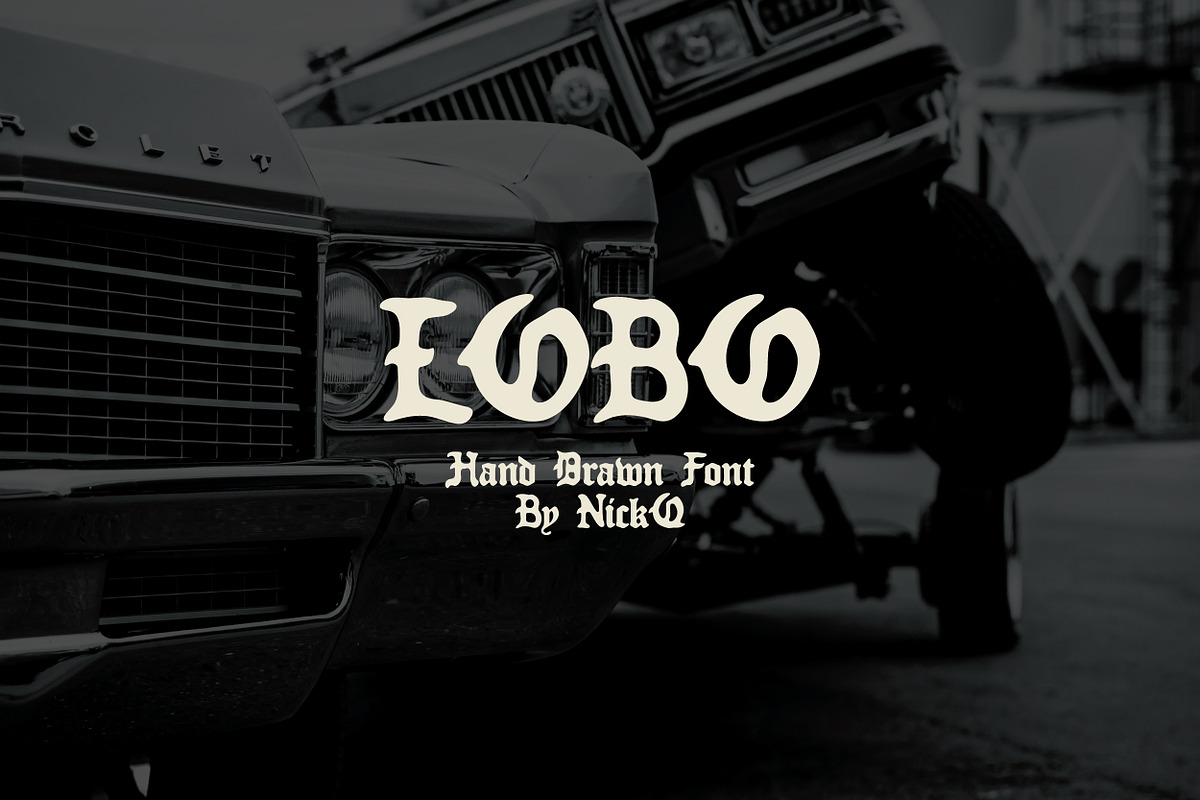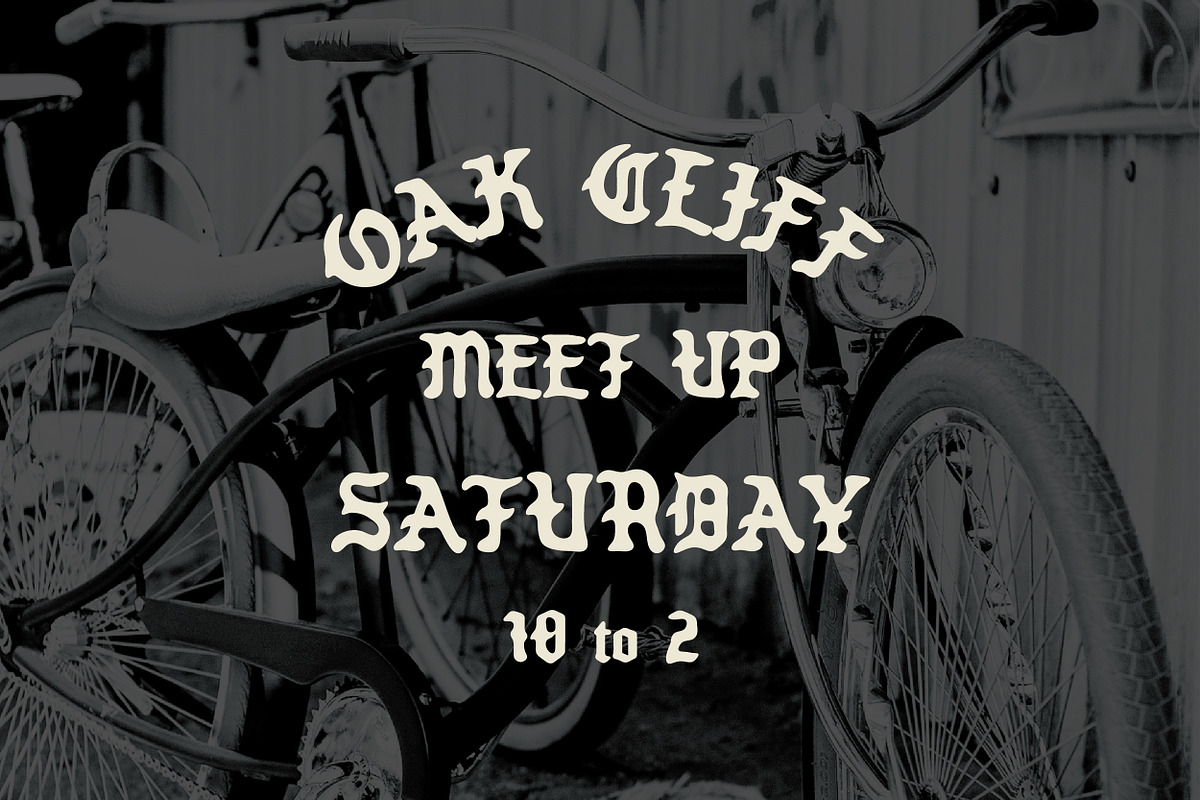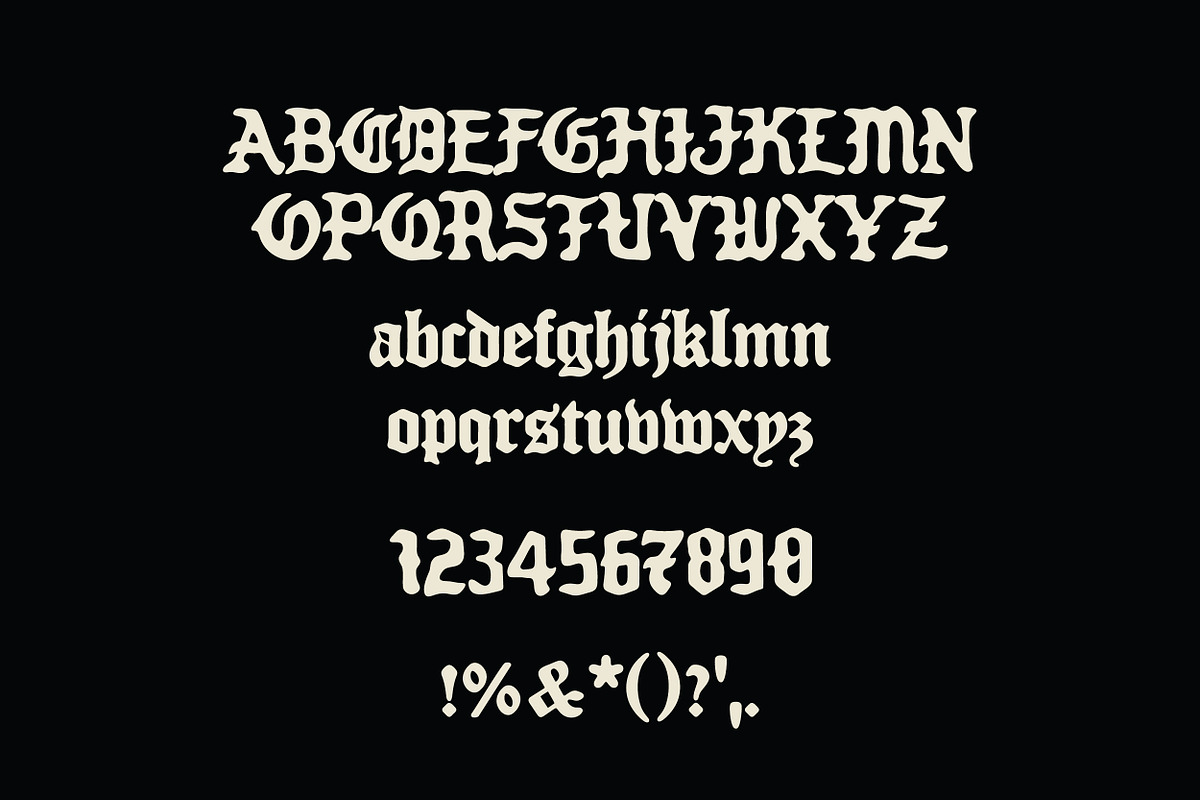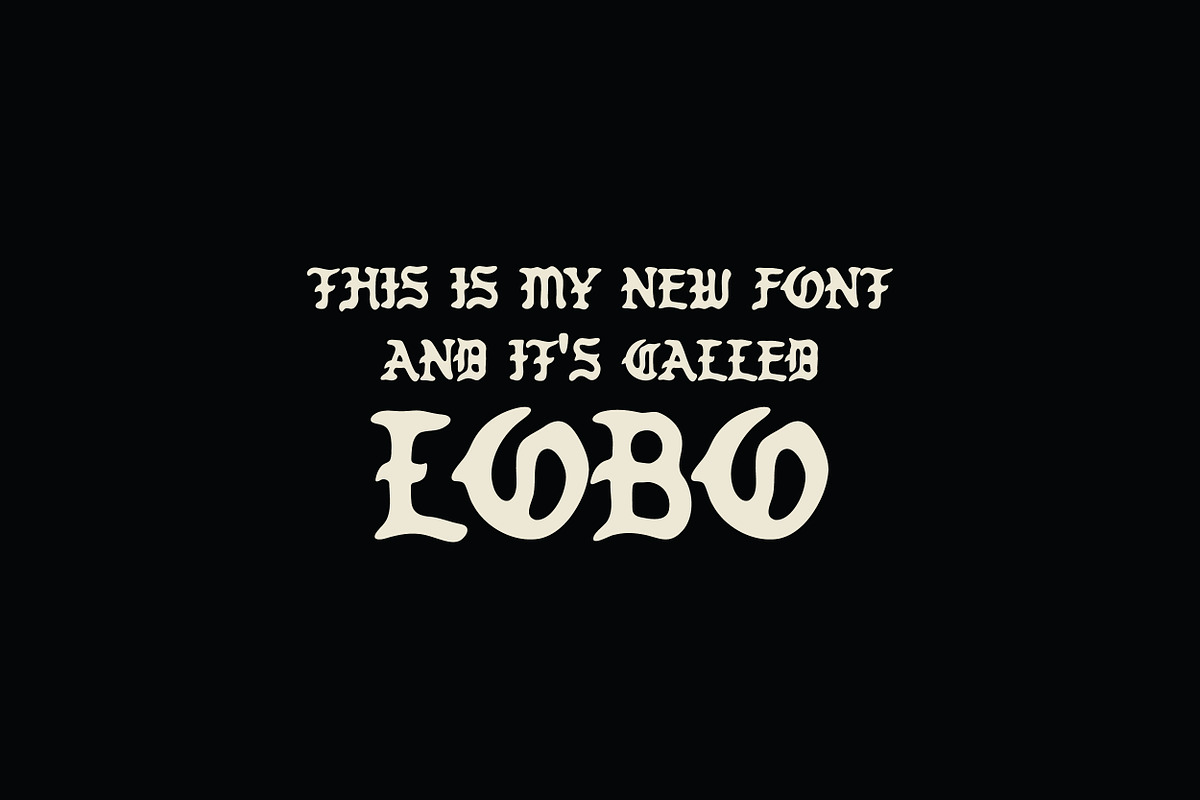
Lobo Hand Drawn Font
This is my newest font inspired by Old English with a little hand drawn roughness. It's perfect for t-shirt designs and logos that need some edginess. Features uppercase, lowercase and some limited special characters.